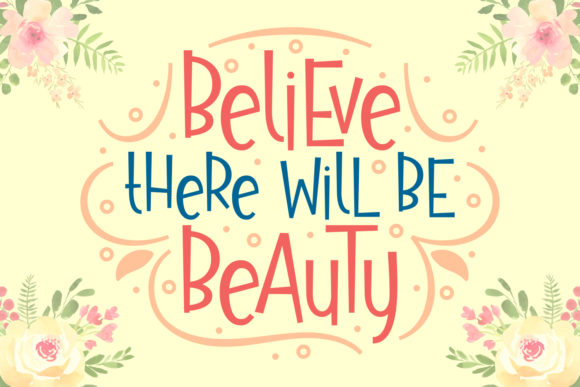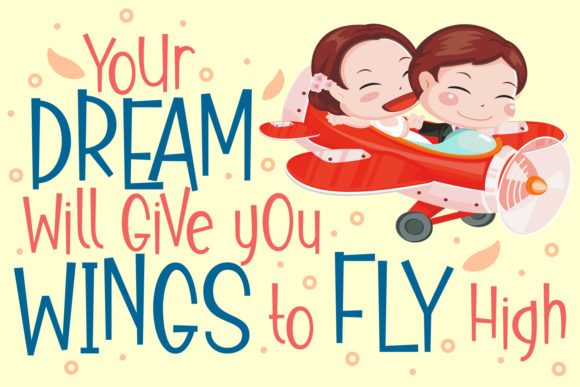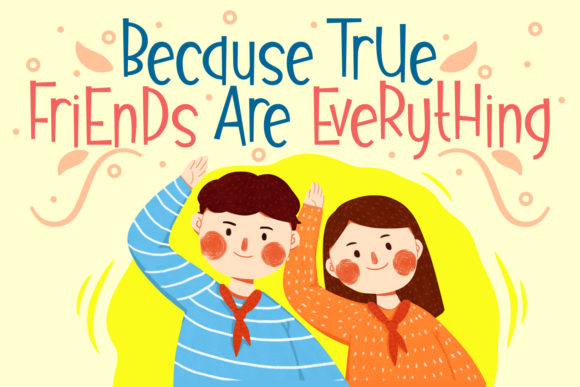
Believe There Will Be Beauty Font
About Believe There Will Be Beauty Font
Believe There Will Be Beauty is an inspiring, yet whimsical handwritten font with lots of personality! It will turn any design project into a stand out.